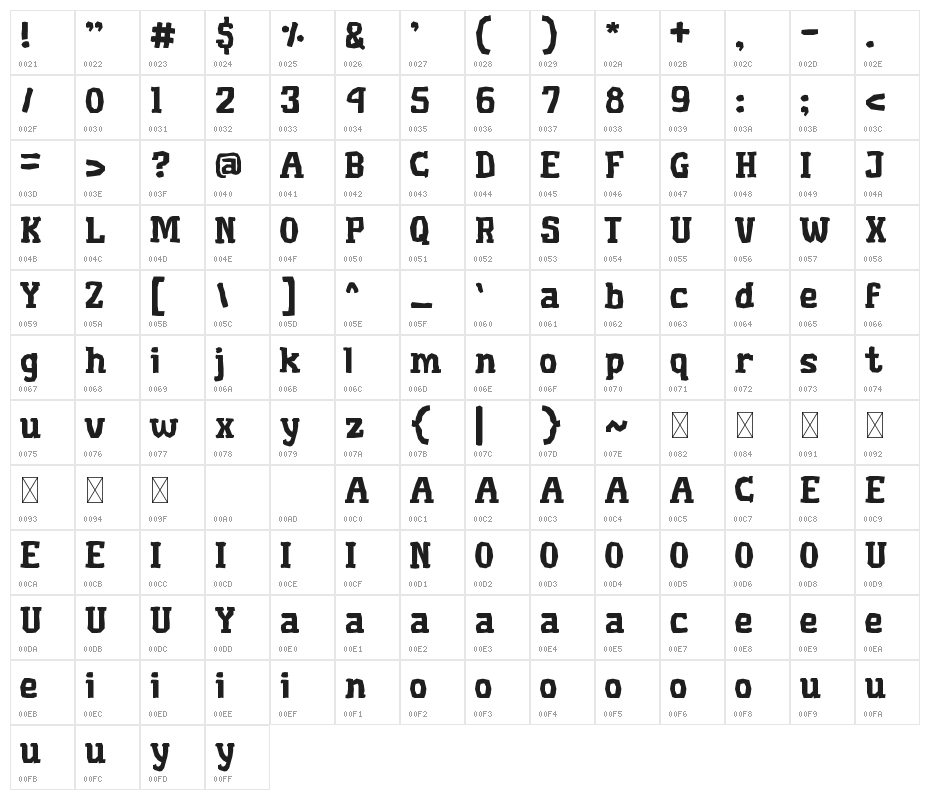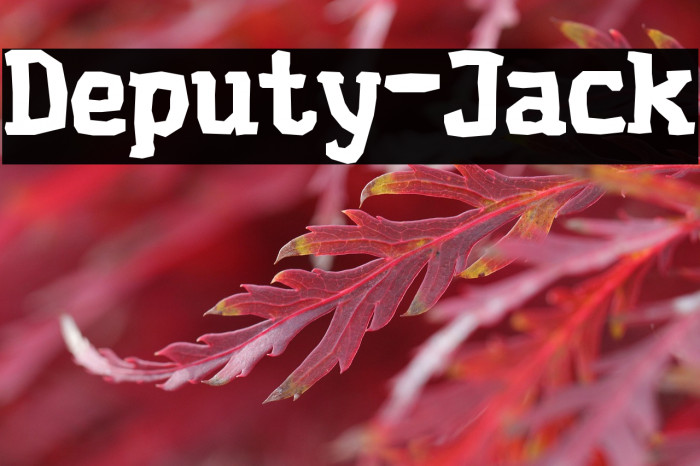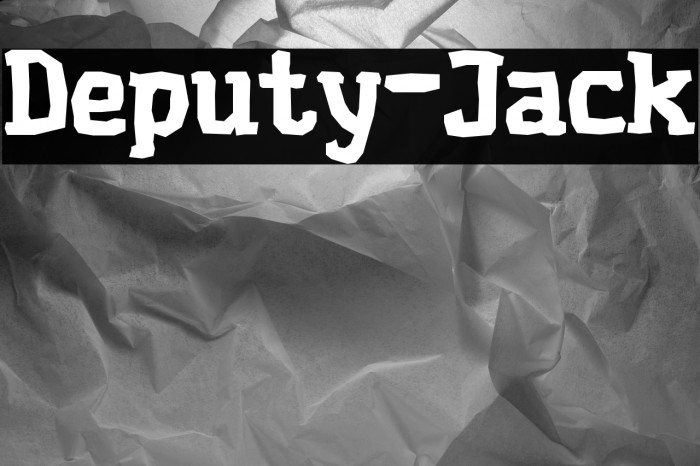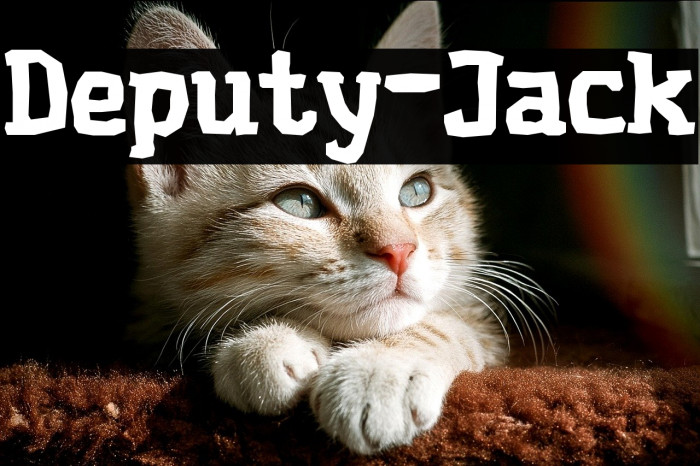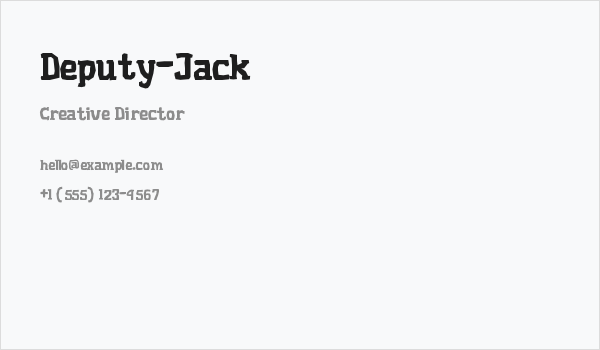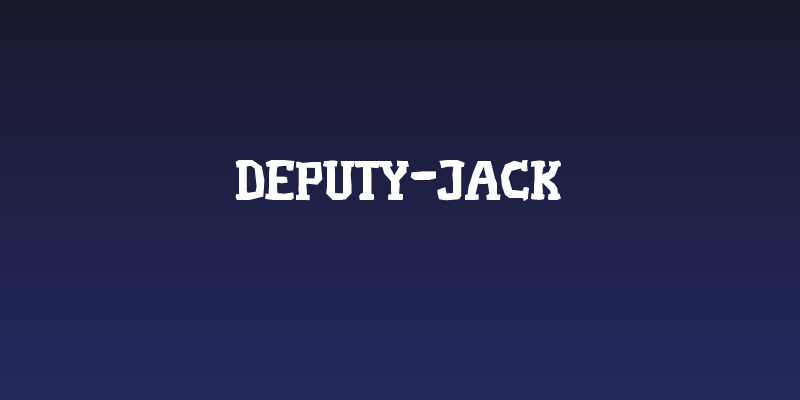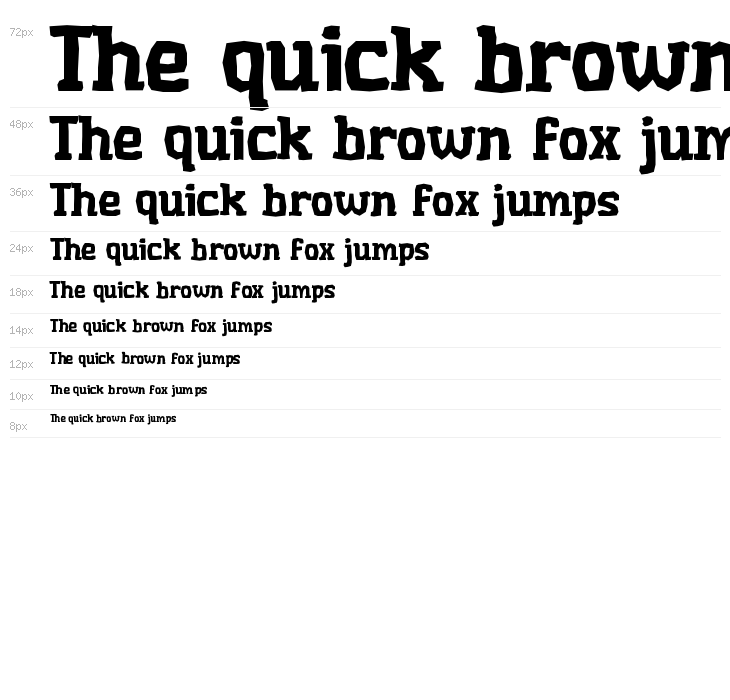
Deputy-Jack Font
Deputy-Jack Description
This font features a bold and rugged design, reminiscent of the Old West. The characters have a distressed, hand-crafted appearance, with uneven edges and a slightly irregular baseline that adds to its rustic charm. The uppercase letters are strong and commanding, while the lowercase letters maintain a consistent style with a touch of playfulness. Numbers and special characters follow the same aesthetic, making the font versatile for various uses. Its unique style is perfect for projects that require a vintage or Western theme, providing a sense of adventure and nostalgia.
| Proposed Projects | Ideal for Western-themed posters, vintage branding, adventure book covers, and rustic signage. |